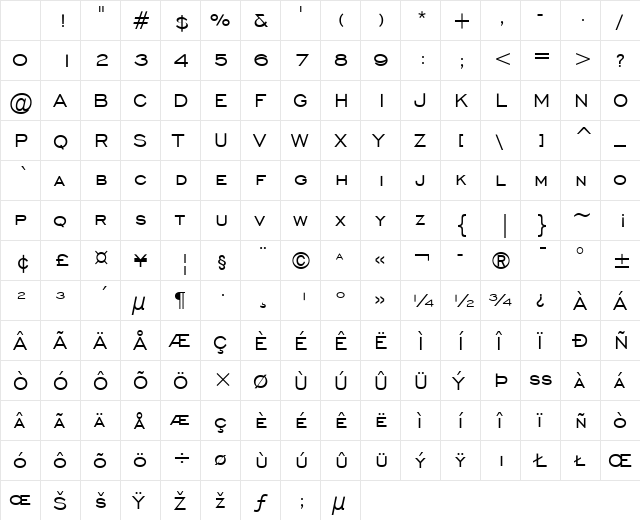
Complete Engravers' Gothic Regular glyph index. Displaying only characters natively supported by Engravers' Gothic Regular font.
Engravers' Gothic takes a clean, functional approach - its unadorned letterforms prioritise legibility and work reliably across screen and print environments.
Font Pairing: Works well alongside a characterful serif or display font that can carry the expressive load while Engravers' Gothic handles the functional copy.
Pro Tip: Use Engravers' Gothic for UI labels, navigation, and short-form body copy where clean legibility is the priority.